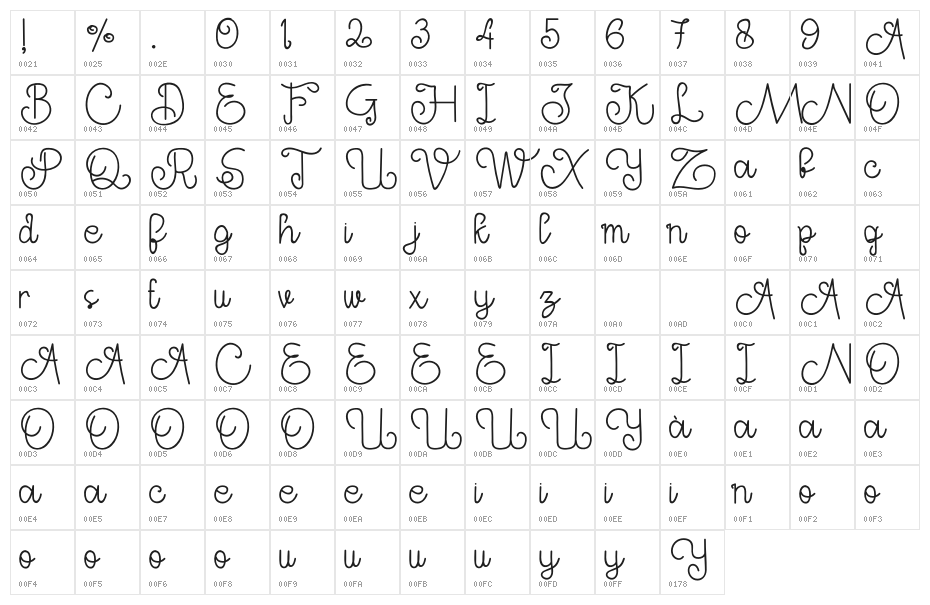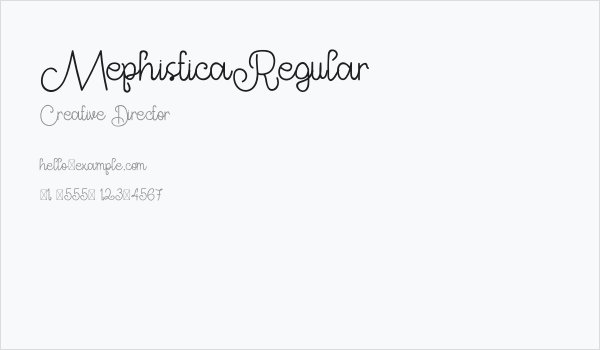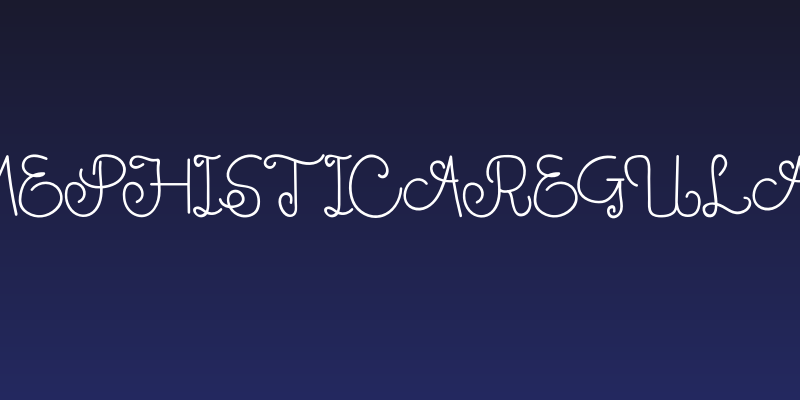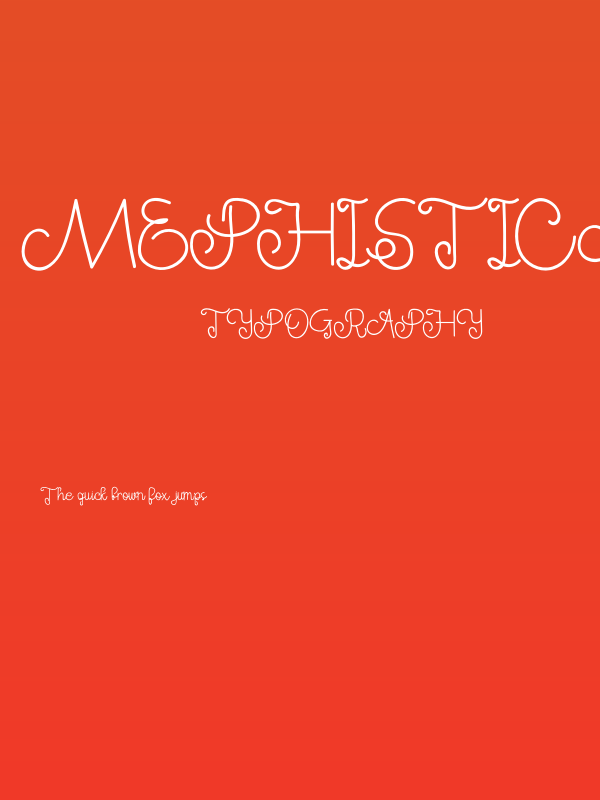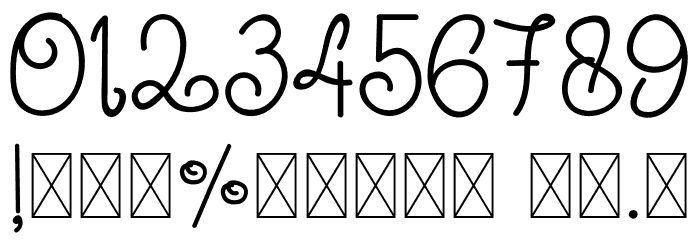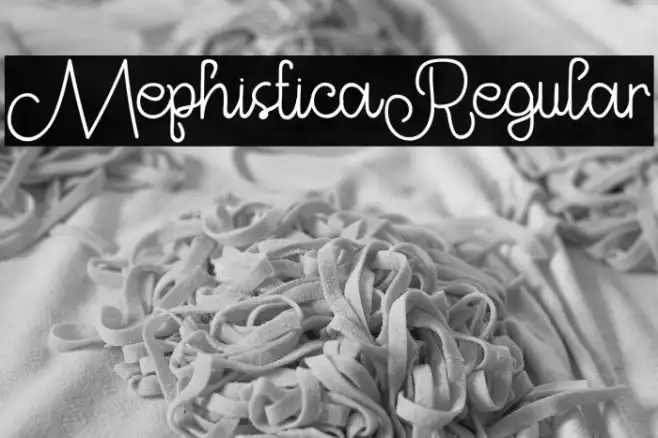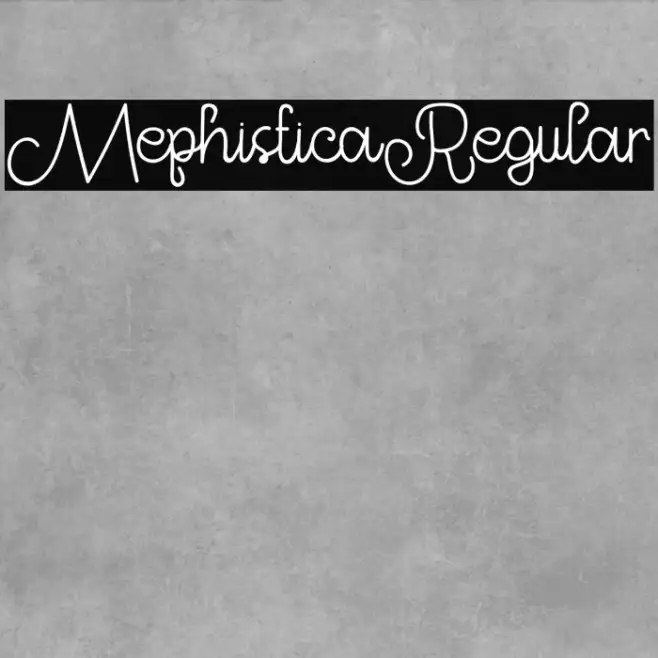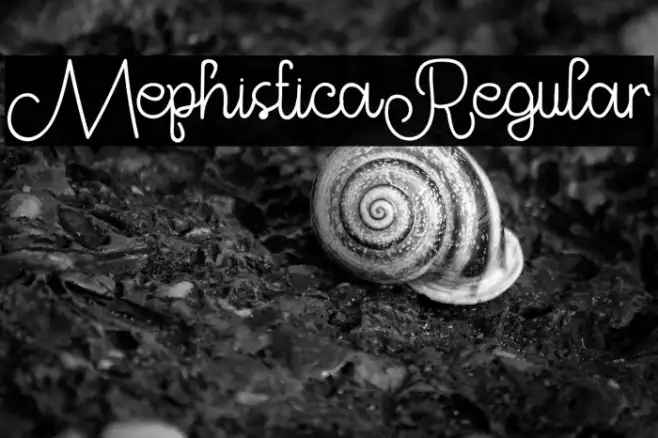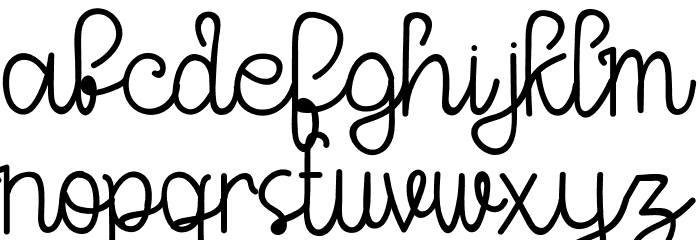
MephisticaRegular Font
MephisticaRegular Description
This font features a whimsical and playful script style, characterized by its curly and looping letterforms. The uppercase letters are distinct with elegant swirls and flourishes, giving them a decorative appearance. The lowercase letters maintain a consistent flow, with some letters extending below the baseline, adding to the font's charm. Numbers are crafted with similar loops, ensuring uniformity across the set. The special characters complement the overall style, enhancing its decorative appeal. This font is ideal for projects that require a touch of elegance and creativity, such as invitations, greeting cards, or branding materials.